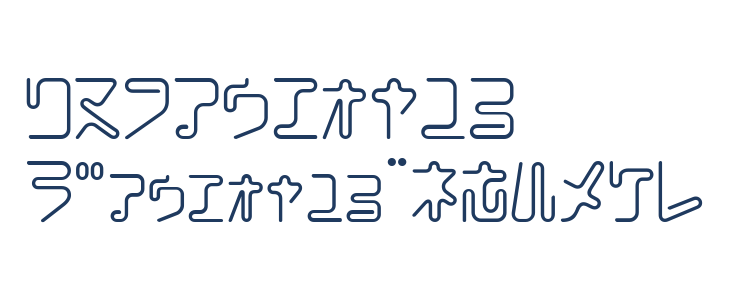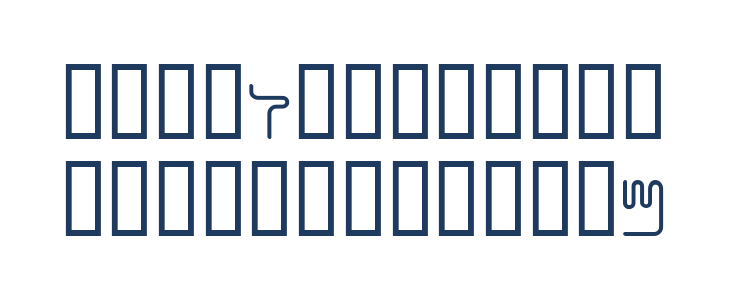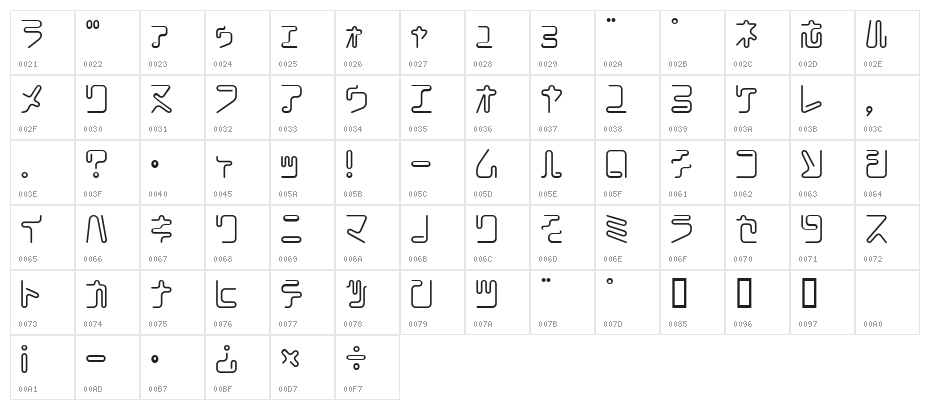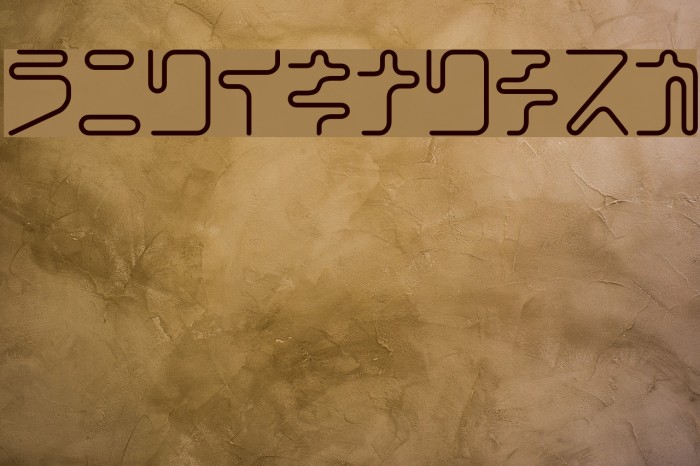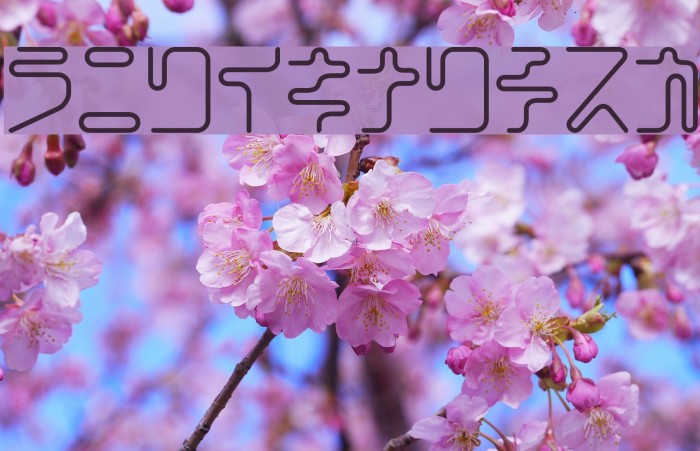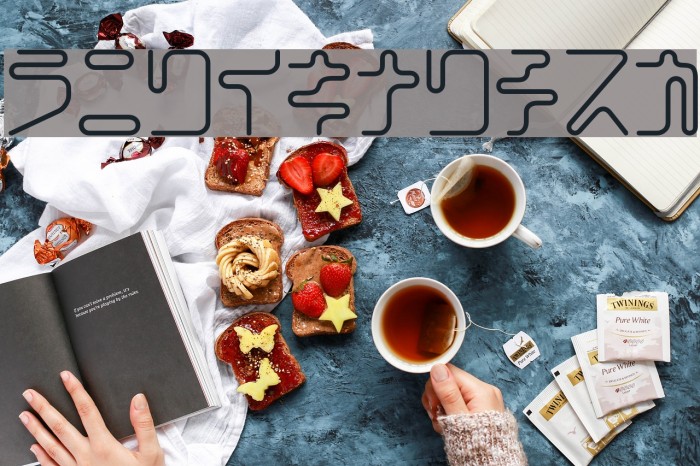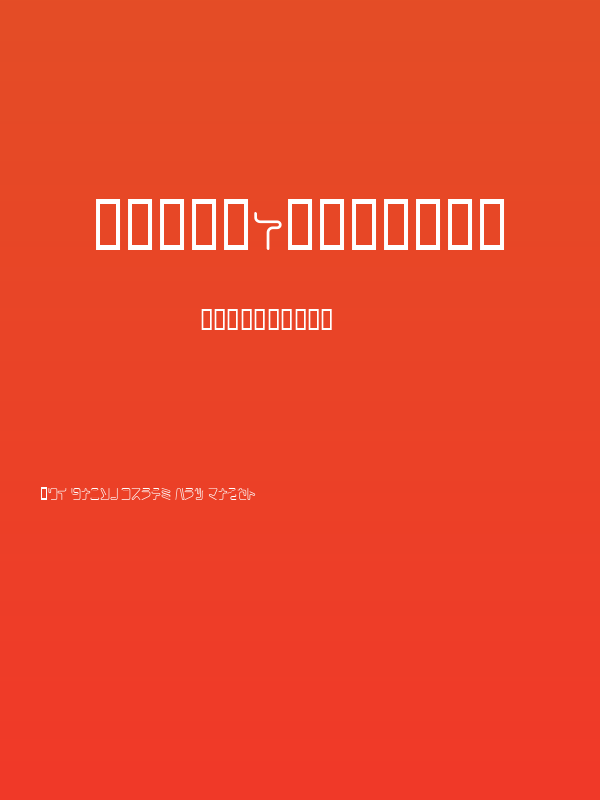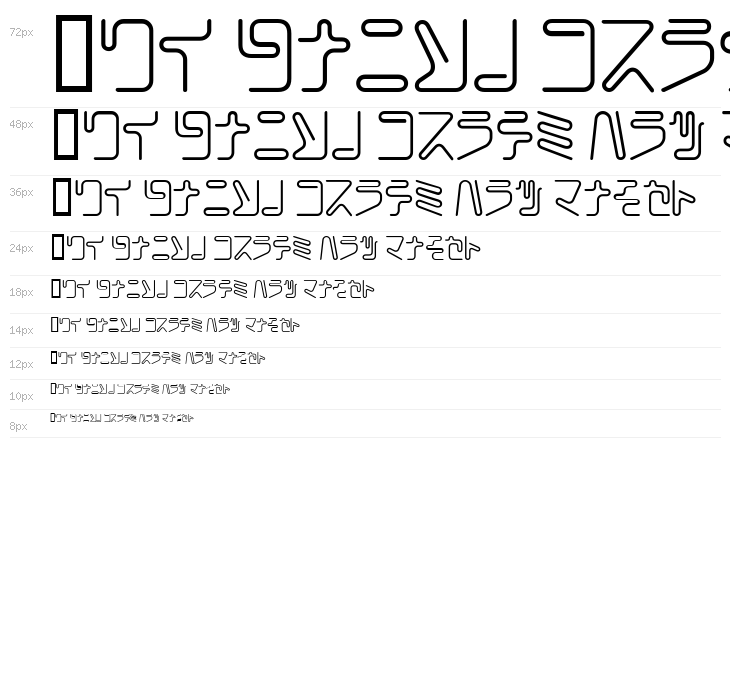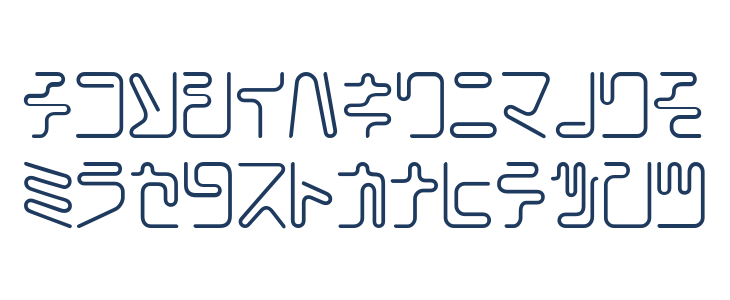
CoilRegularKt Font
CoilRegularKt Description
This font features a futuristic and geometric design with a unique coil-like structure. Each character is formed with a continuous line that creates a sense of movement and fluidity. The letters are bold and have a consistent stroke width, giving them a modern and sleek appearance. The font's design is minimalistic yet striking, making it suitable for creative and innovative projects. Its distinct style is eye-catching and can add a contemporary touch to any design.